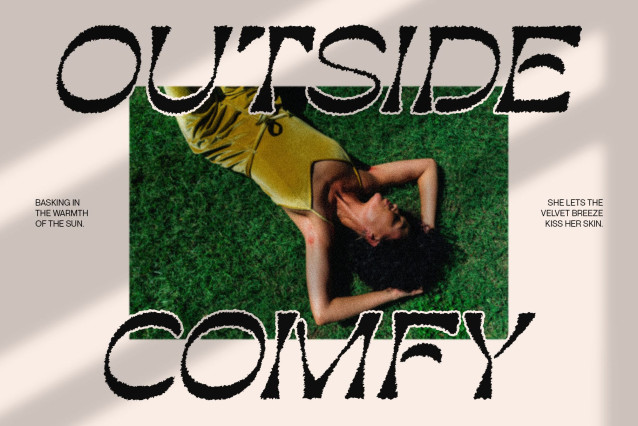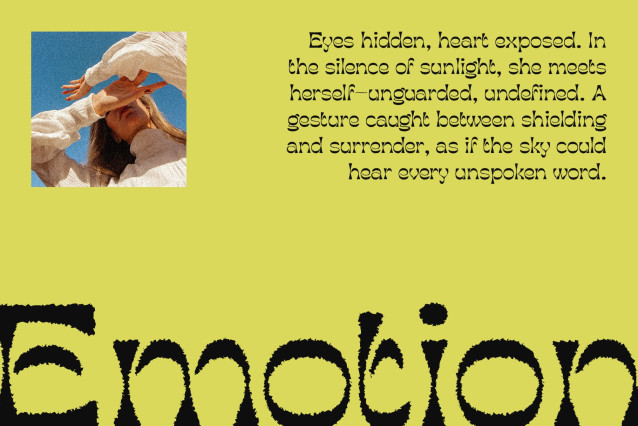
Rapsed Rough Font
Rapsed Rough Font is a display font defined by its reverse contrast style—featuring thick horizontal strokes and thin vertical lines. This inversion creates a distinctive visual rhythm that’s instantly eye-catching, giving your typography a bold and unconventional flair rooted in historical design.